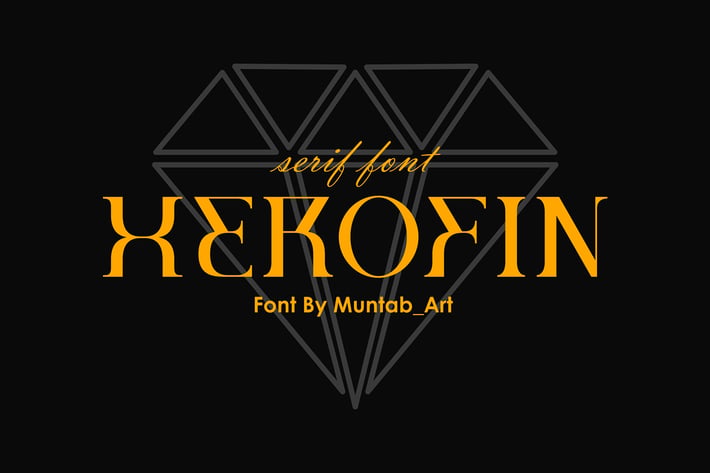
Herofin | Modern Serif font
Herofin fonts includes uppercase letters, numerals, a large range of punctuation. Serif font with modern style. Created for poster, web design, branding, illustrations, badges and some other works.